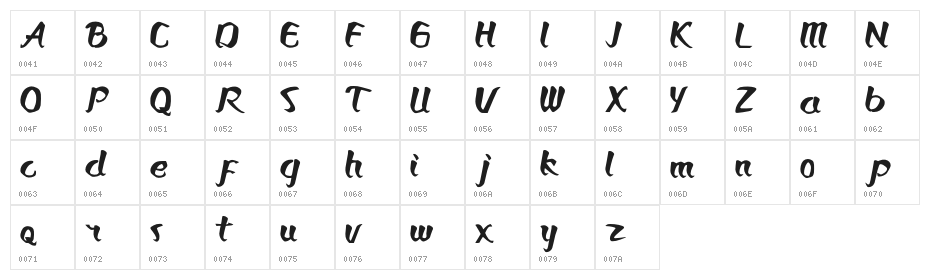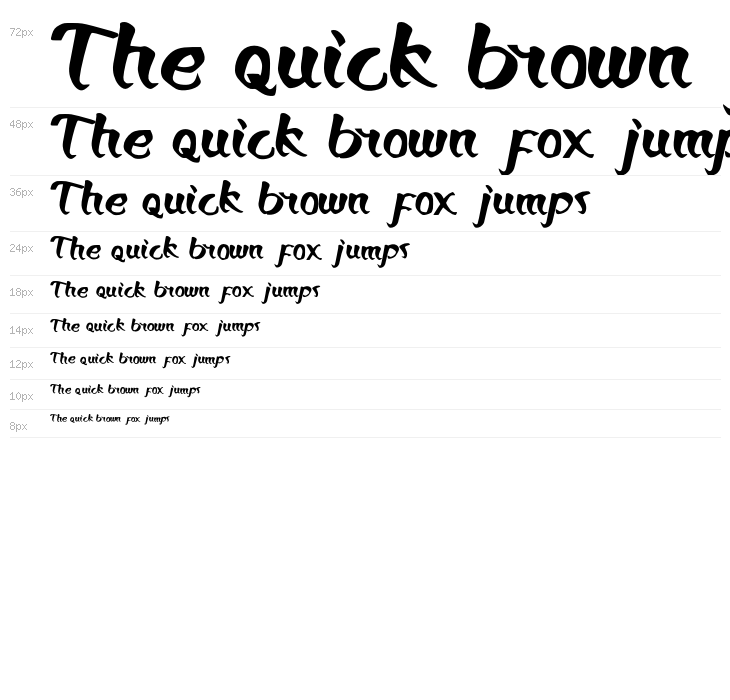
Bronkos Font
Bronkos Description
This font features a bold, calligraphic style with a strong emphasis on fluidity and elegance. The uppercase letters are characterized by sweeping curves and sharp angles, giving them a dynamic and energetic appearance. The lowercase letters maintain the same fluidity, with a slightly more compact form. The overall design is reminiscent of traditional calligraphy, yet it has a modern twist that makes it suitable for contemporary use. The font lacks numerical and special character representations, focusing solely on alphabetic characters. Its bold strokes and artistic flair make it ideal for projects that require a touch of sophistication and creativity.
| Use Case | Logos, Headlines, Artistic projects |
| Proposed Projects | Ideal for invitations, branding, logos, and artistic projects requiring a sophisticated touch. |